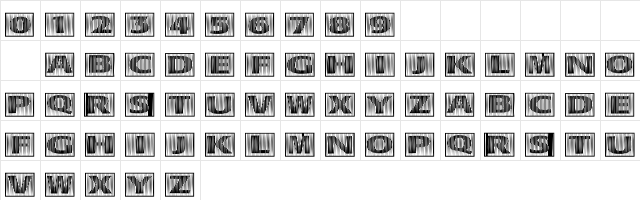
101! BarCode 'Bet Regular
Design Context for 101! BarCode 'Bet Typeface
101! BarCode 'Bet uses fixed-width spacing throughout, giving it the structured, systematic character associated with coding environments and technical documentation.
A natural fit for code editors, technical documentation, developer-focused branding, and terminal-inspired UI.
Pro Tip: Pair 101! BarCode 'Bet with a proportional sans for UI contexts where code-style labels and regular body copy need to coexist.